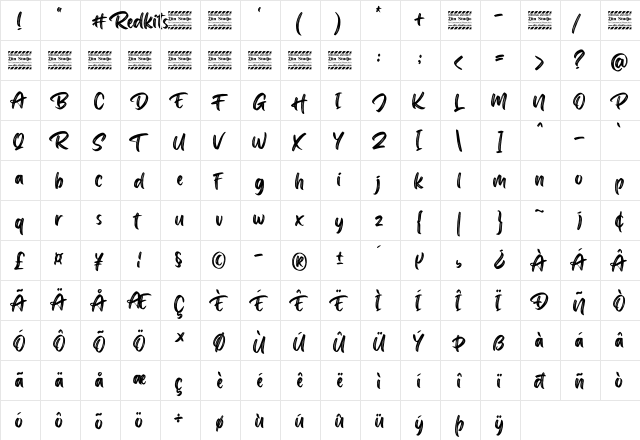
Redkits Personal Use Regular
| Designer | Donis Miftahudin |
Design Context for Redkits Personal Use Typeface
Redkits Personal Use is a composed and adaptable typeface that performs quietly and consistently across a wide range of design contexts.